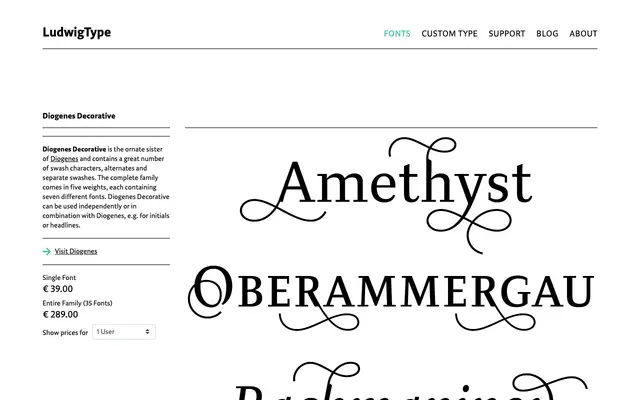
Diogenes Decorative
A decorative display typeface from Ludwig that pushes a serif structure towards ornamental use.
Sitting within Ludwig's Diogenes family, this decorative cut is built for high-impact settings where character and visual presence take precedence over readability at small sizes. The treatment implies a stylised approach suited to editorial headlines, branding and poster work. As with most decorative variants, it works best at large sizes where its detailing can be appreciated.
The name and foundry context suggest a highly stylised display typeface built on a serif skeleton, intended for headlines and decorative applications rather than continuous text.